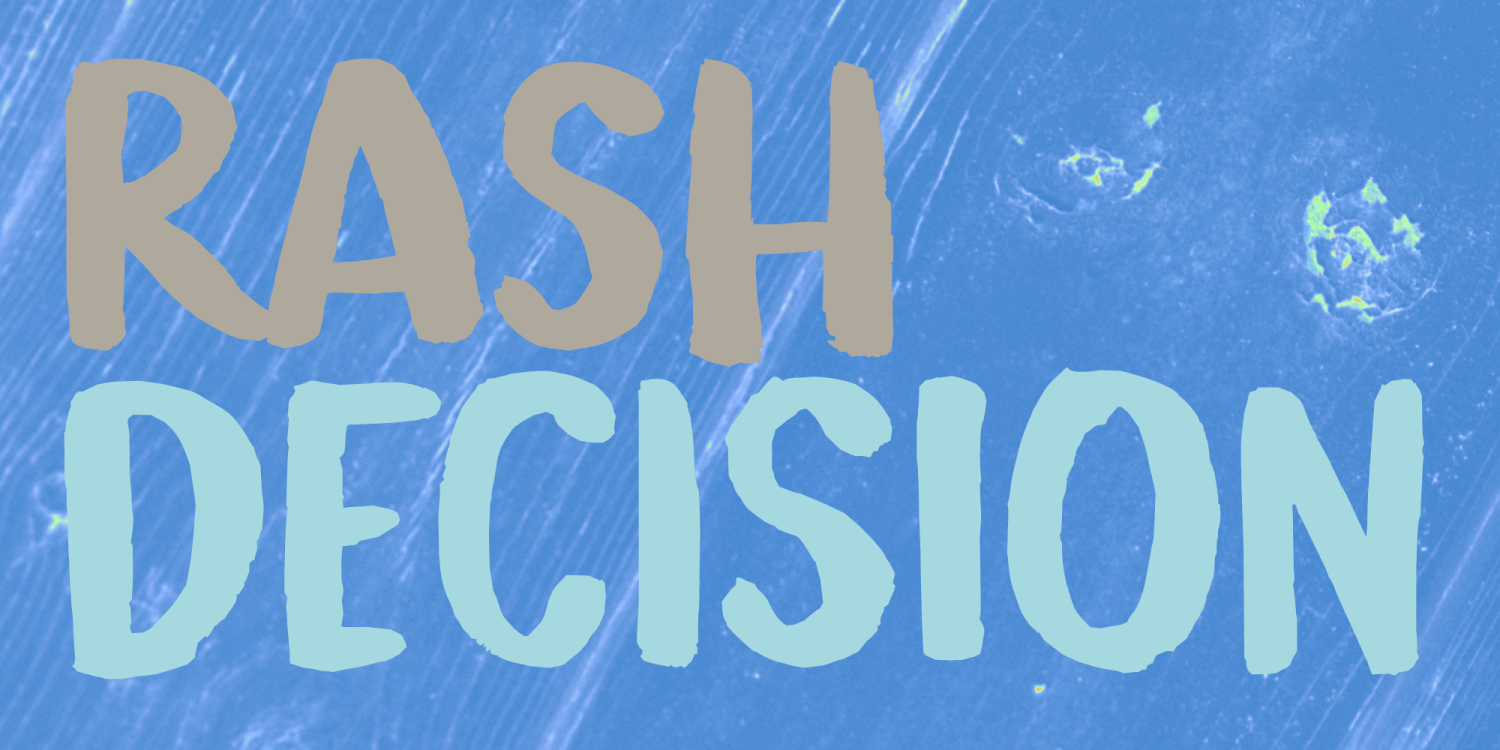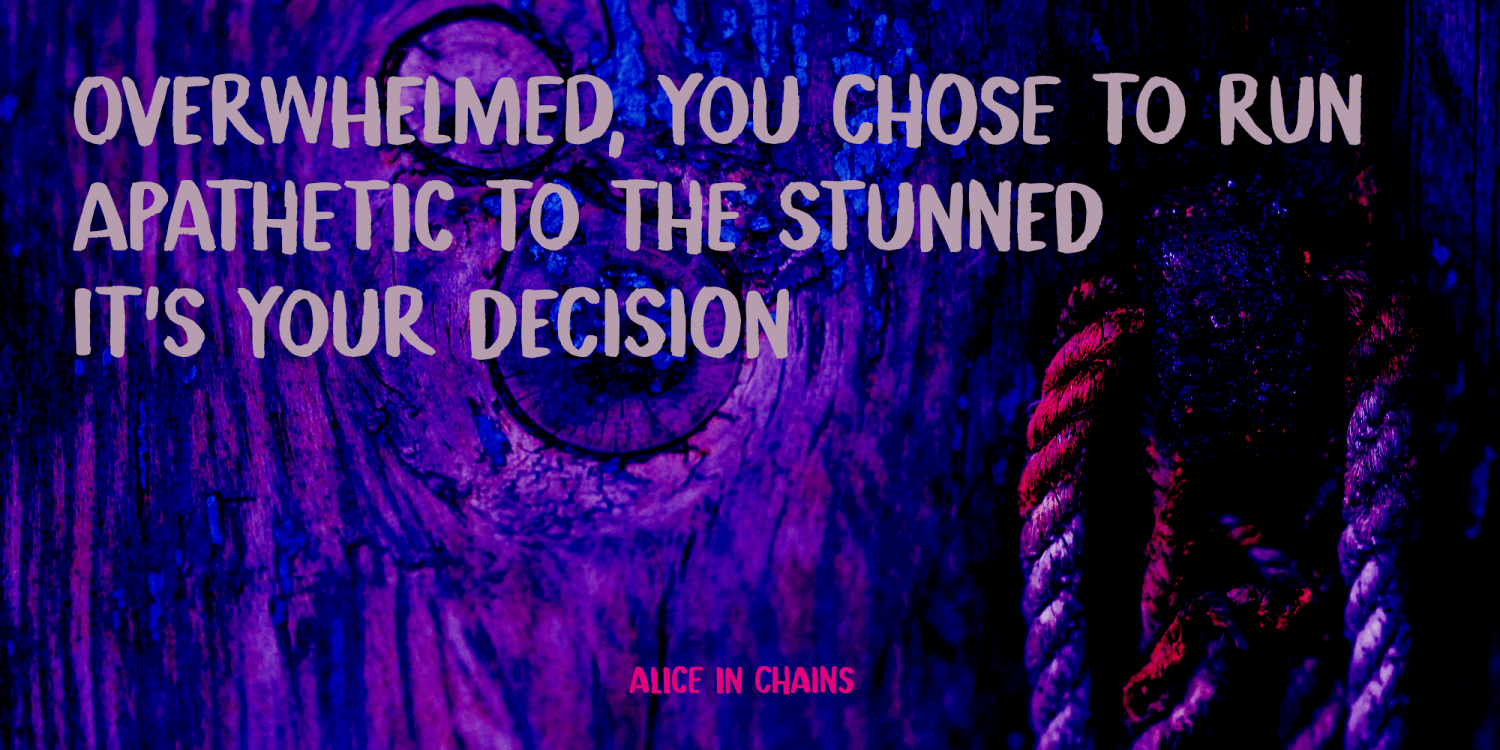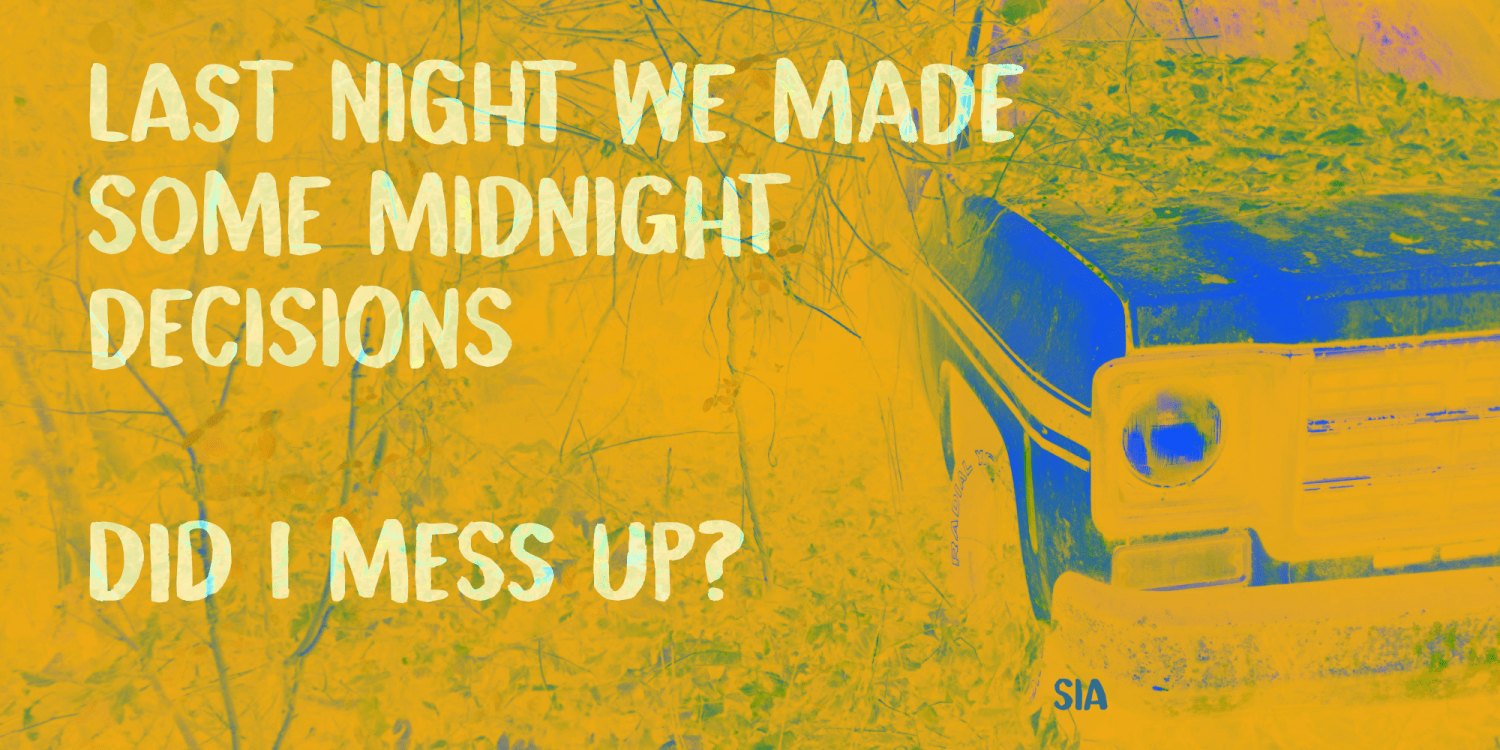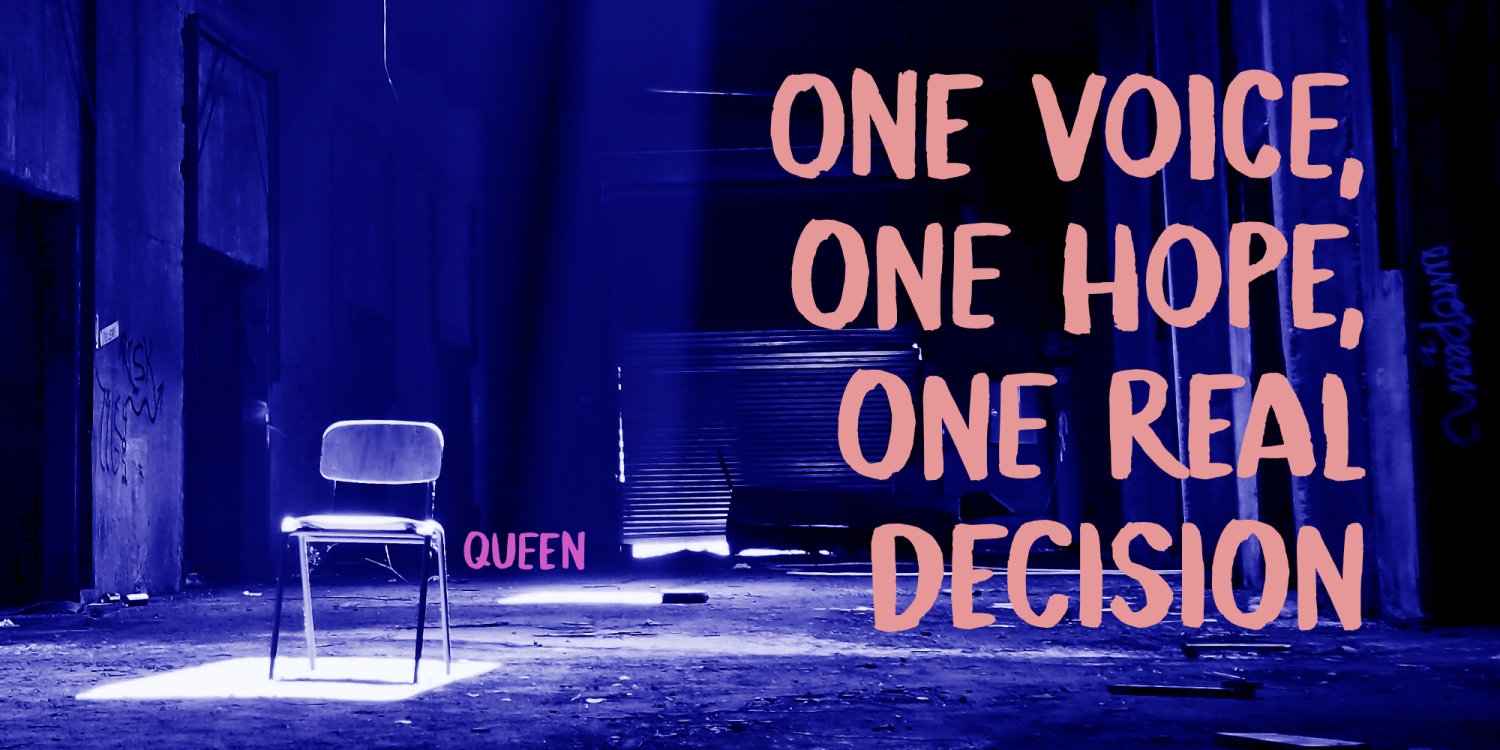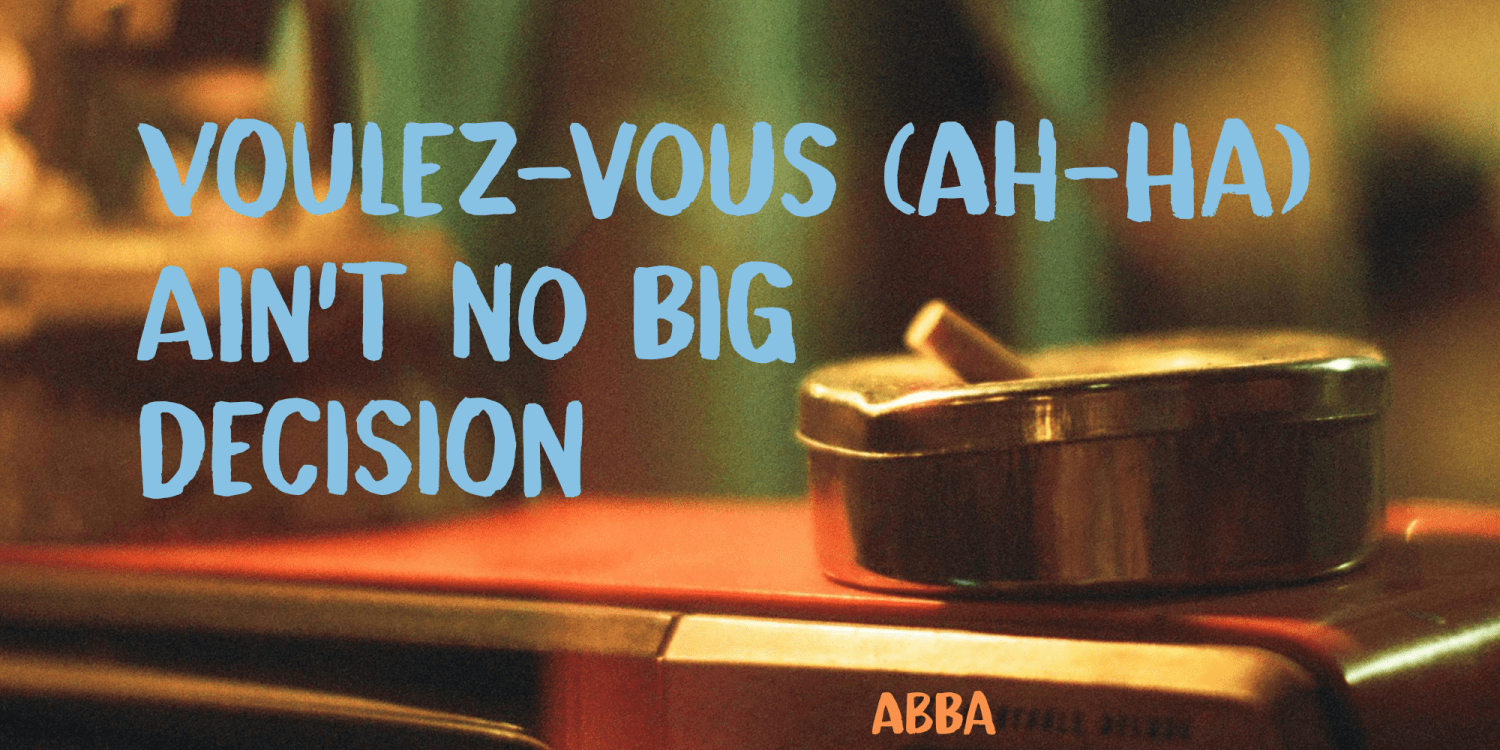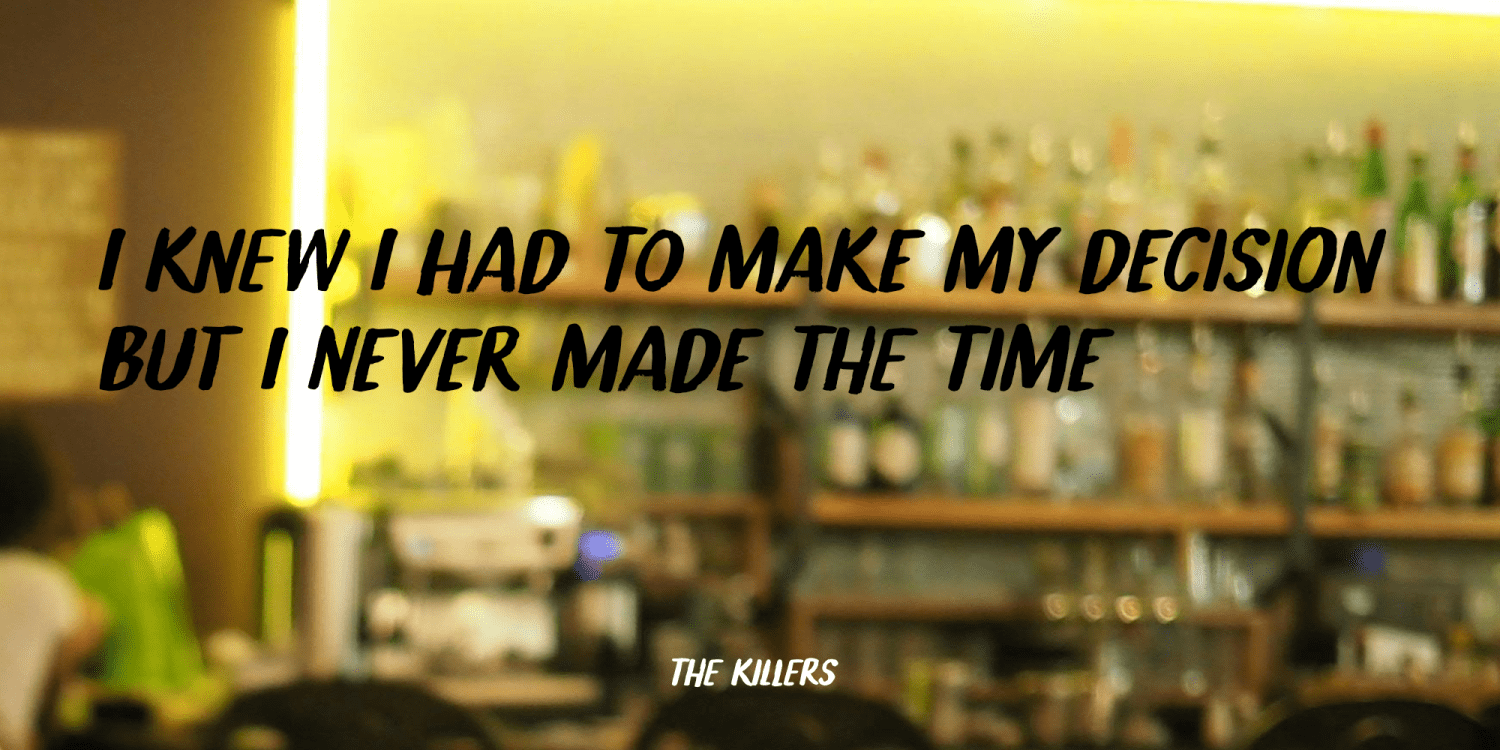
Rash Decision
Luckily, I am not one for making rash decisions. I usually line up all the consequences and mull it over for a while, before committing to something. That doesn’t mean I don’t regret some decisions I made, but those I just have to live with.
Rash Decision is a beautiful handmade font. I used my cheap-as-chips Japanese horse hair brushes and Chinese ink to create the glyphs. Rash Decision comes with extensive language support and a set of alternates for the lower case glyphs.